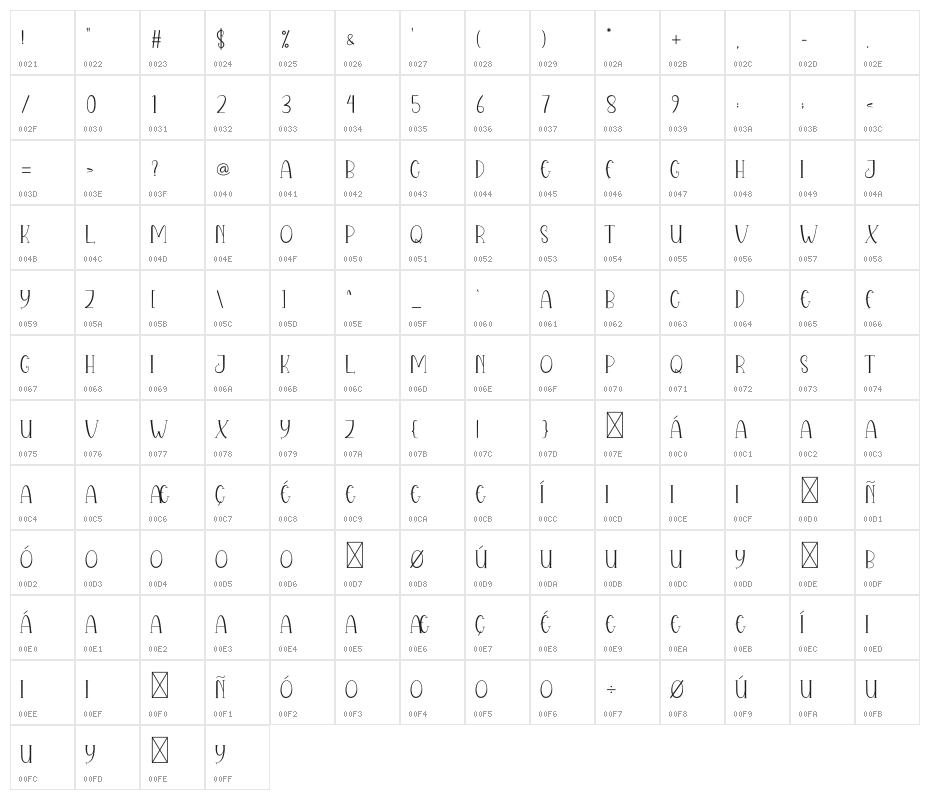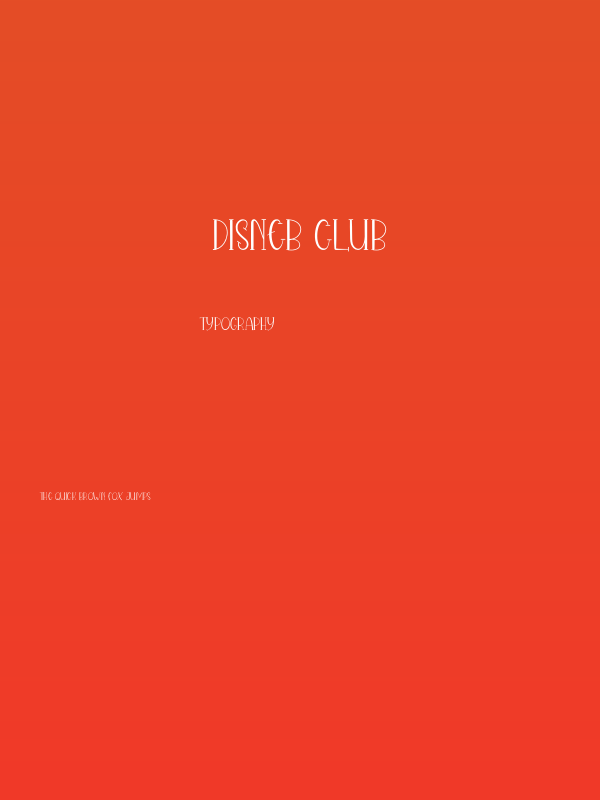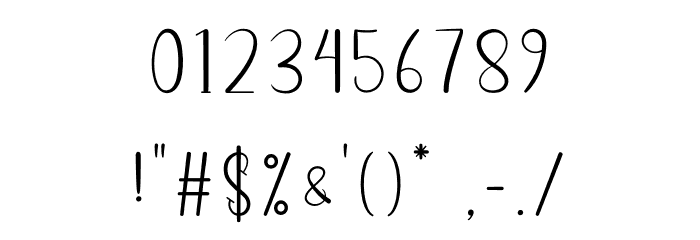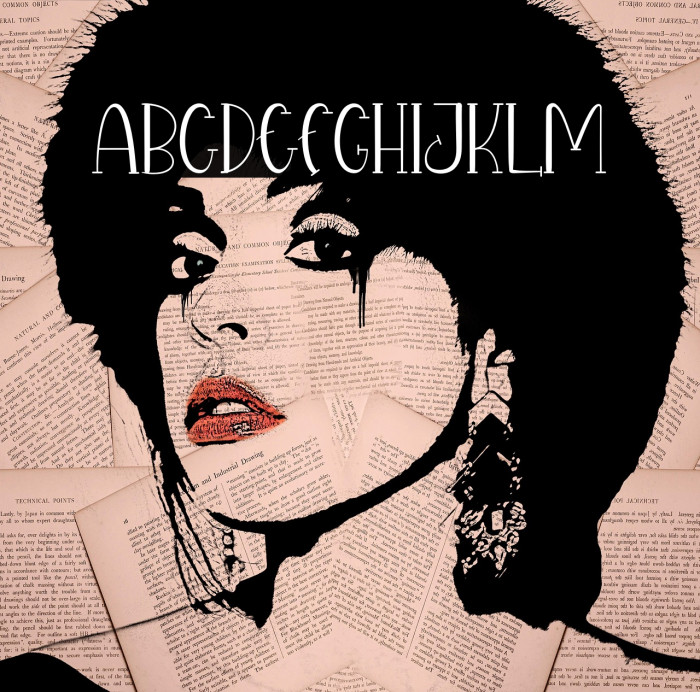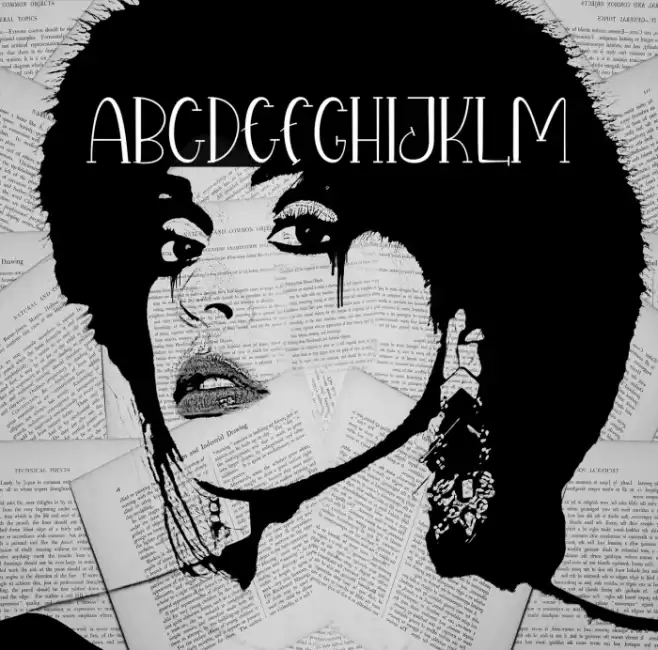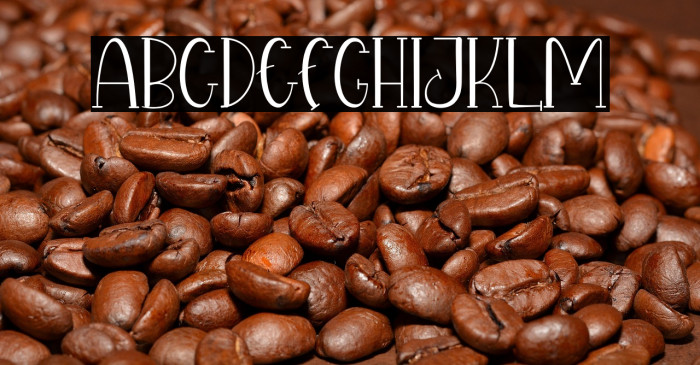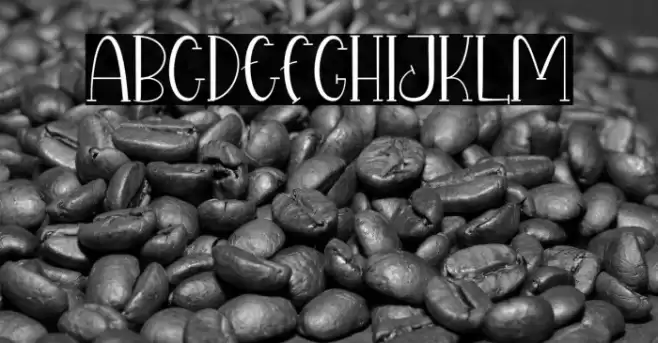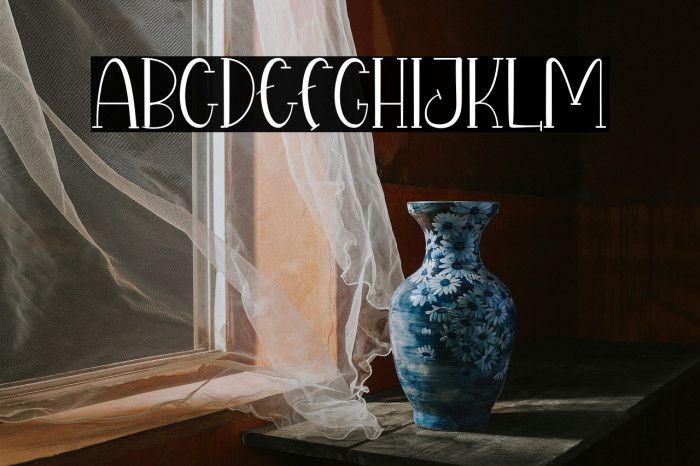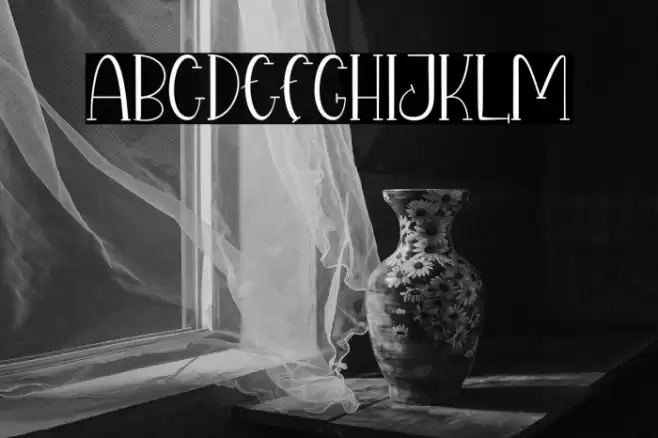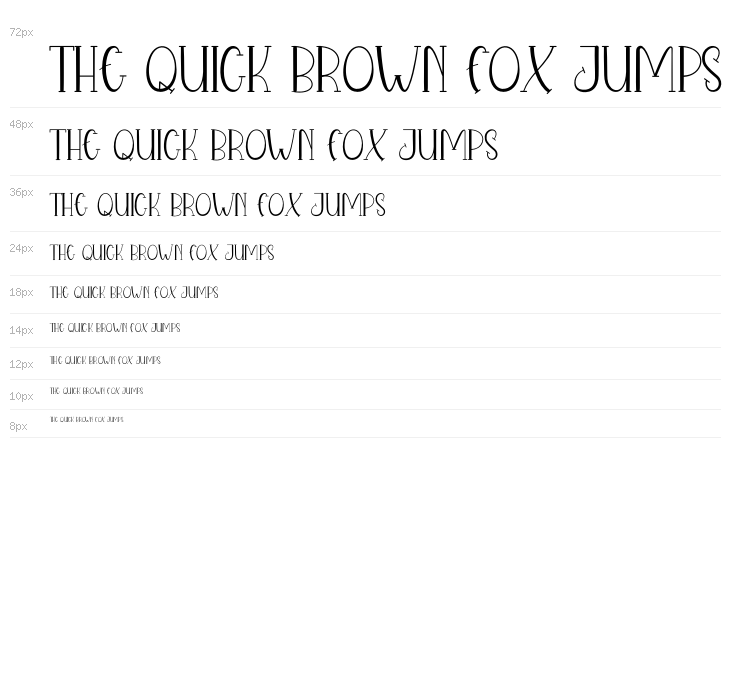
Disneb Club Font
Disneb Club Description
This font features a whimsical and playful design, characterized by its unique and decorative letterforms. The uppercase letters have a distinct flair with elongated serifs and curved strokes, giving them an elegant yet fun appearance. The lowercase letters maintain a consistent style, complementing the uppercase with their own subtle curves and embellishments. Numbers are designed with a similar playful touch, ensuring consistency throughout the typeface. Special characters are included, each crafted with the same attention to detail, making this font versatile for various creative applications.
| Overall Style | Playful and Decorative |
| Use Case | Headlines, Logos, Creative Projects |